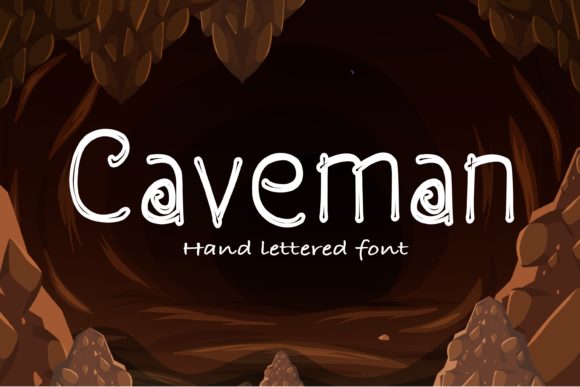
Journey back to the era of cave paintings with Caveman Script, a unique handwritten font that captures the essence of prehistoric art. Crafted by the renowned PJ Fonttein, this font is a masterpiece of simplicity, designed to breathe life into chalkboard quotes, teaching materials, and any project yearning for a personal and realistic touch.
Caveman Script transports you to a time when communication was raw, direct, and visually captivating. Its organic strokes resemble the markings left by our ancestors on cave walls, evoking a sense of authenticity and connection to our roots. With Caveman Script, your designs will transcend the ordinary and resonate with an emotional depth that speaks to the primal instincts within us.
Whether you're a designer, educator, or simply someone who appreciates the beauty of handwritten art, Caveman Script is your gateway to creating visuals that leave a lasting impression. Its versatility extends to a wide range of projects, from chalkboard art to teaching materials, posters to flyers, and everything in between.
Embrace the untamed spirit of Caveman Script and watch your creations come alive with a rustic charm that captivates audiences. Unleash your creativity, explore the boundless possibilities, and let Caveman Script guide you on a journey through time and expression.